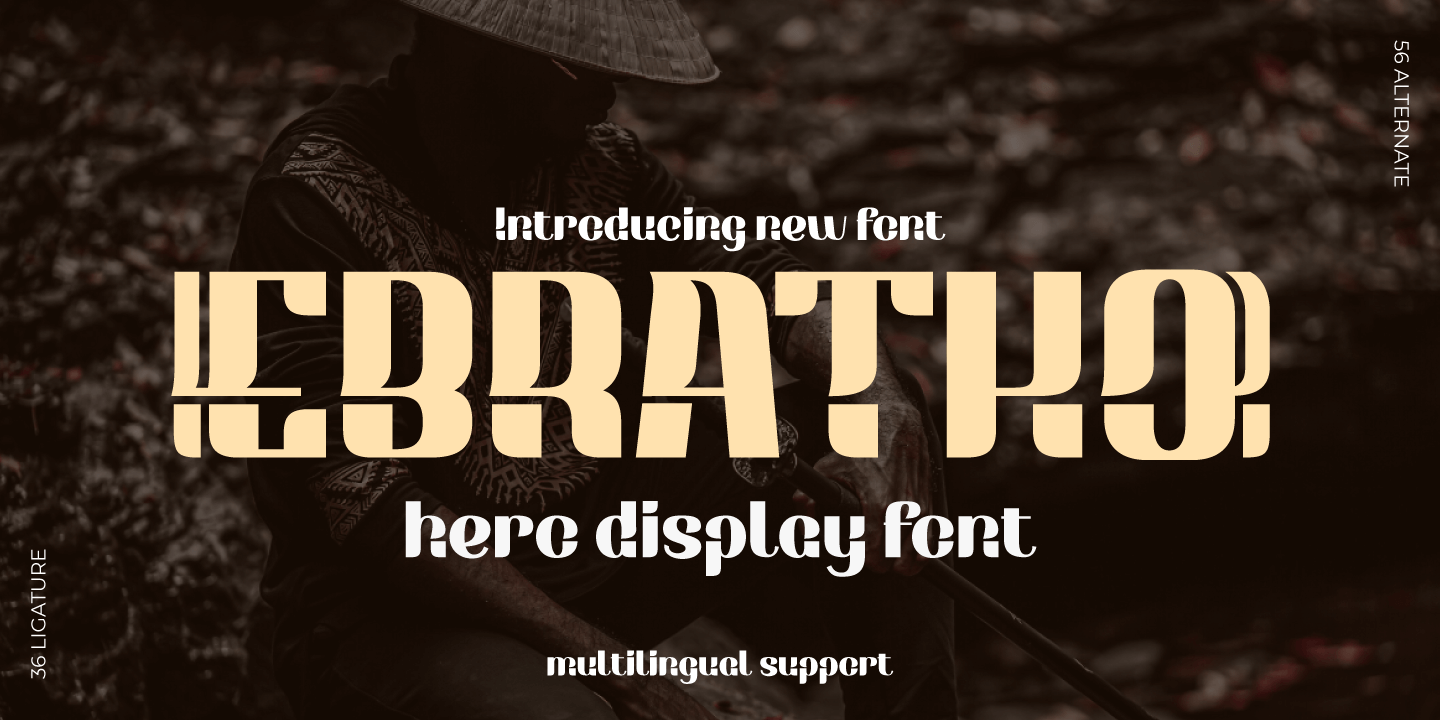
EBRATHO Font is perfect for bold advertising campaigns, powerful brand statements, commanding corporate logos, dynamic poster designs, impactful headline typography, strong industrial branding, authoritative signage systems, masculine product packaging, robust sporting goods marketing, and striking projects that demand unwavering strength and confident presence with commanding visual authority.
What makes EBRATHO Font so exciting is its exceptional ability to project strength and authority through bold, uncompromising letterforms that command immediate attention and respect. This typeface embodies power and confidence, featuring robust character construction with strong vertical emphasis and decisive strokes that suggest unwavering determination while maintaining excellent readability for contemporary applications requiring maximum visual impact and brand dominance.
EBRATHO Font family includes multiple powerful variations: Regular, Bold, Light, Heavy, Ultra, Black, Condensed, and Impact versions. Each style maintains the font's inherent commanding presence while offering different levels of visual weight and authority, enabling designers to create hierarchical systems that establish clear brand dominance and communicate strength across diverse marketing applications and corporate communications.
The commanding presence of EBRATHO Font Free Download makes it exceptionally valuable for brands requiring strong market positioning and authoritative communication. This font successfully communicates leadership and reliability, making it ideal for companies that need to establish dominance in competitive markets and project unwavering confidence. Its powerful character works effectively across both digital advertising platforms and high-impact print materials, while its distinctive bold aesthetic creates immediate recognition among audiences seeking strong, dependable brands and authoritative business partners.